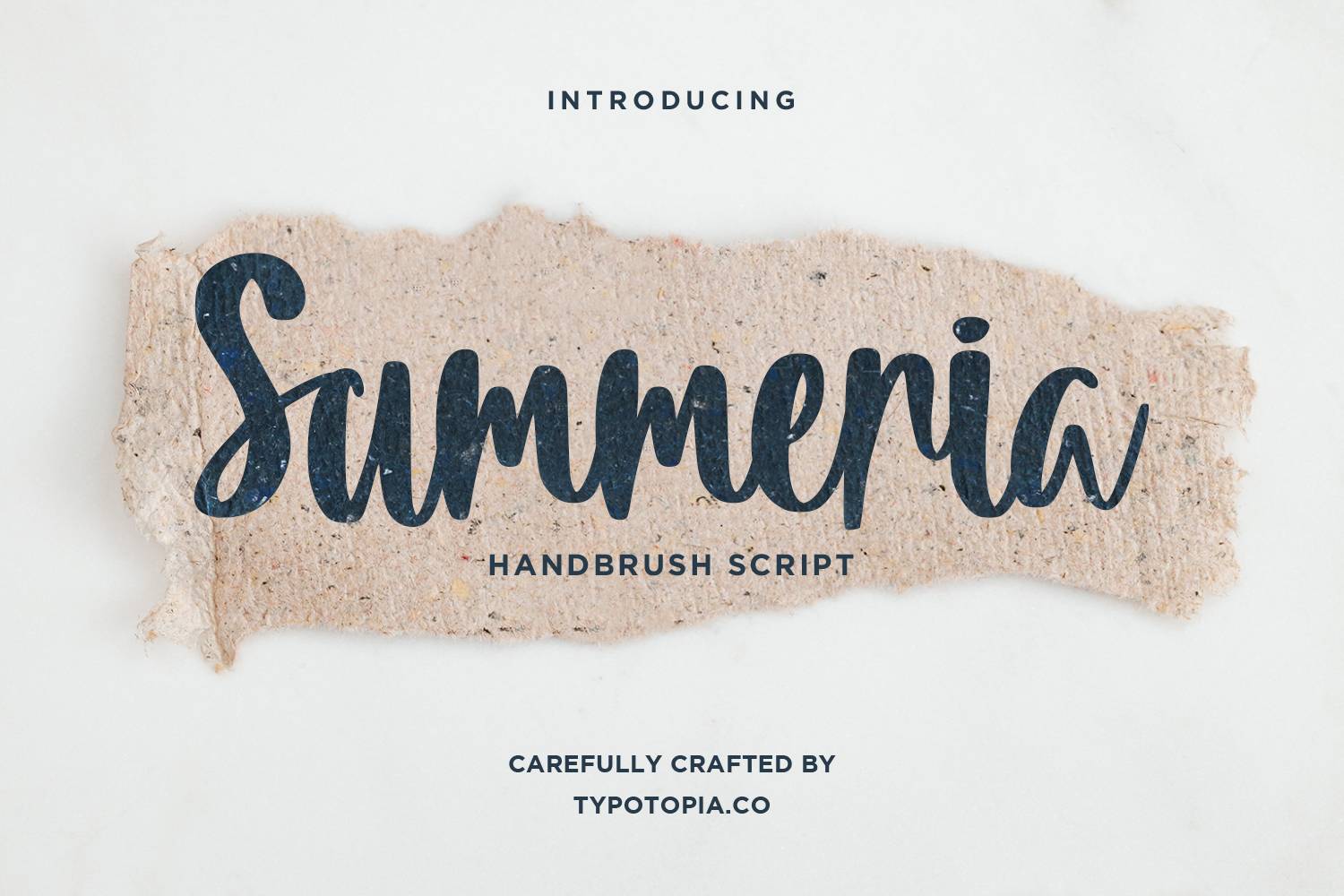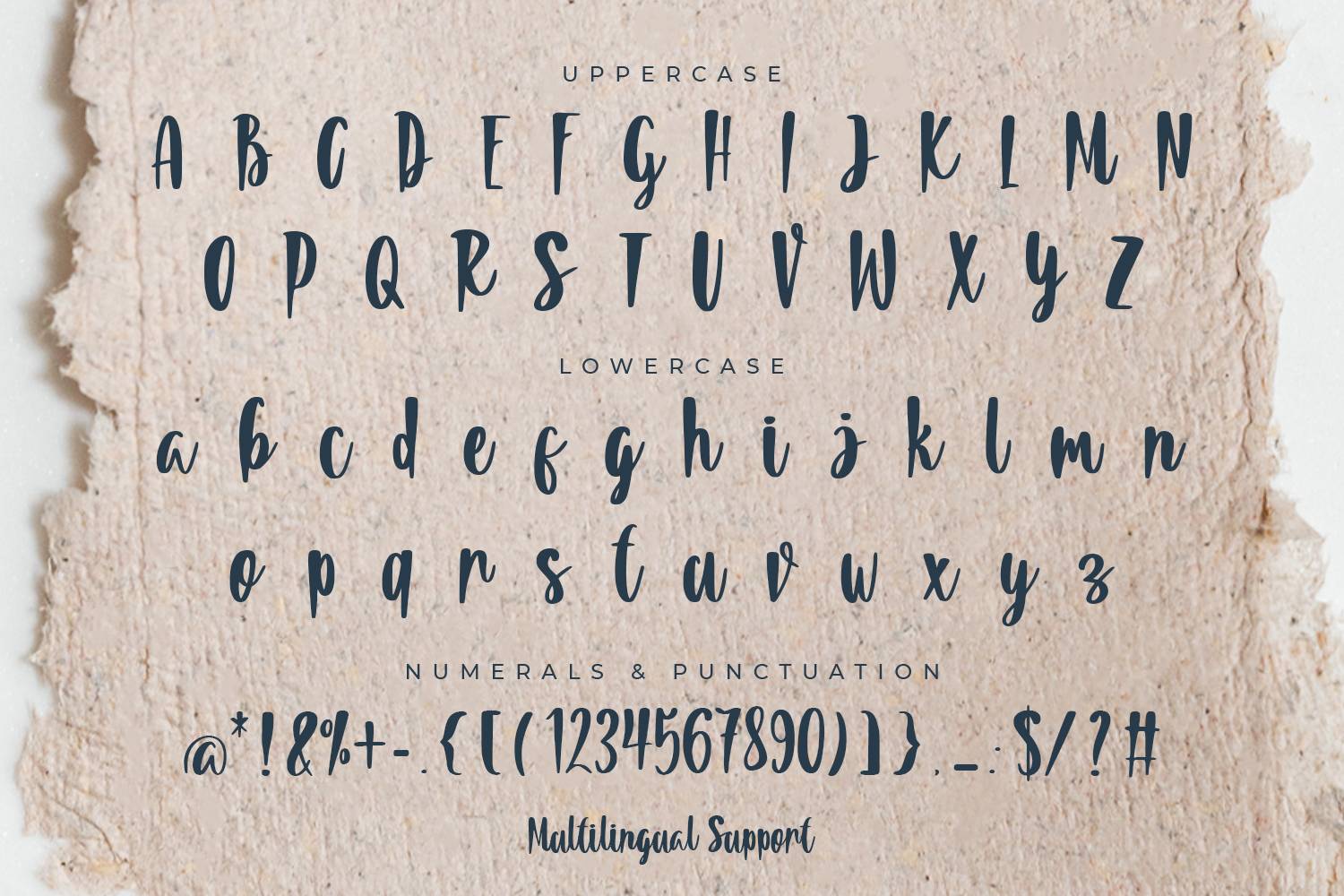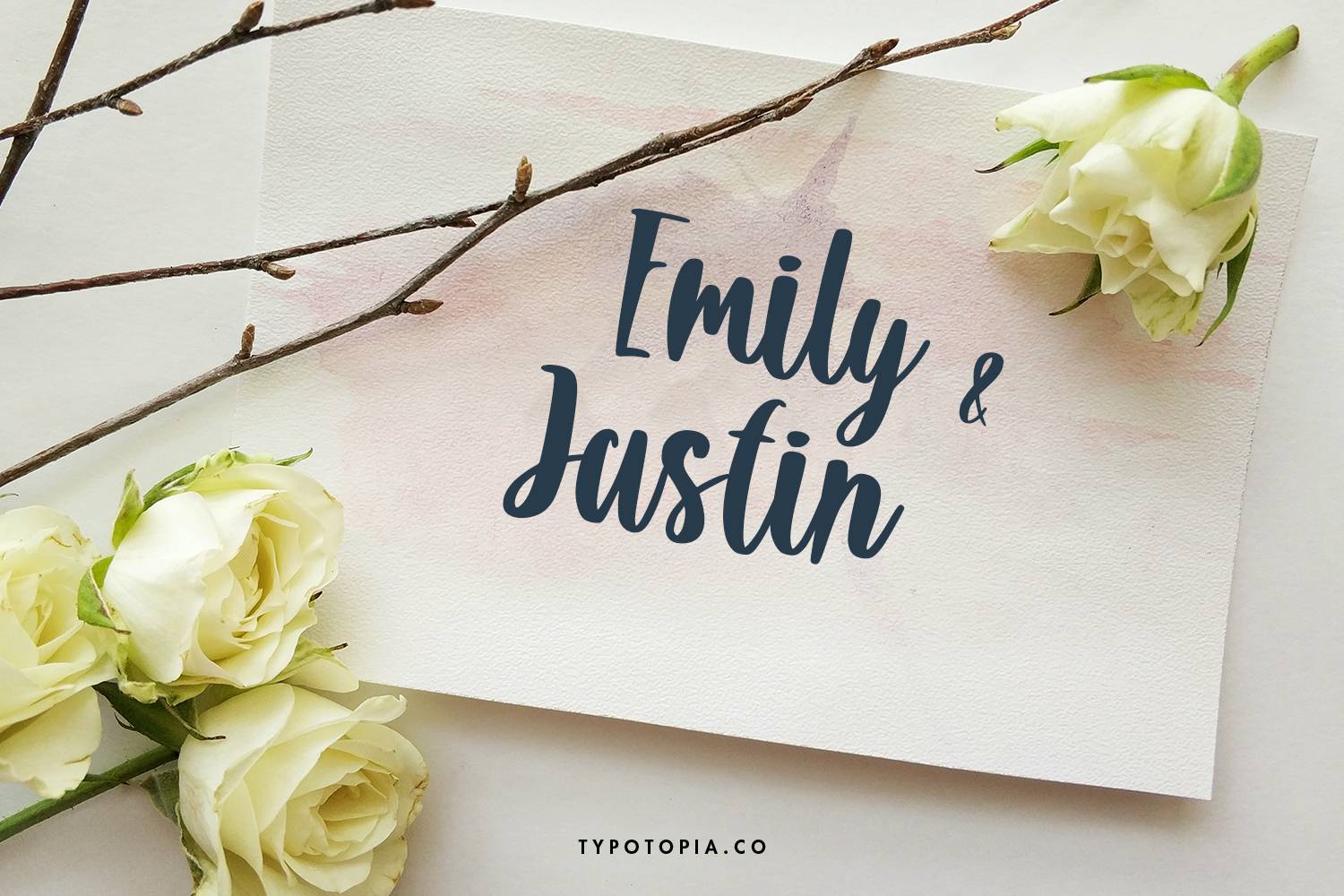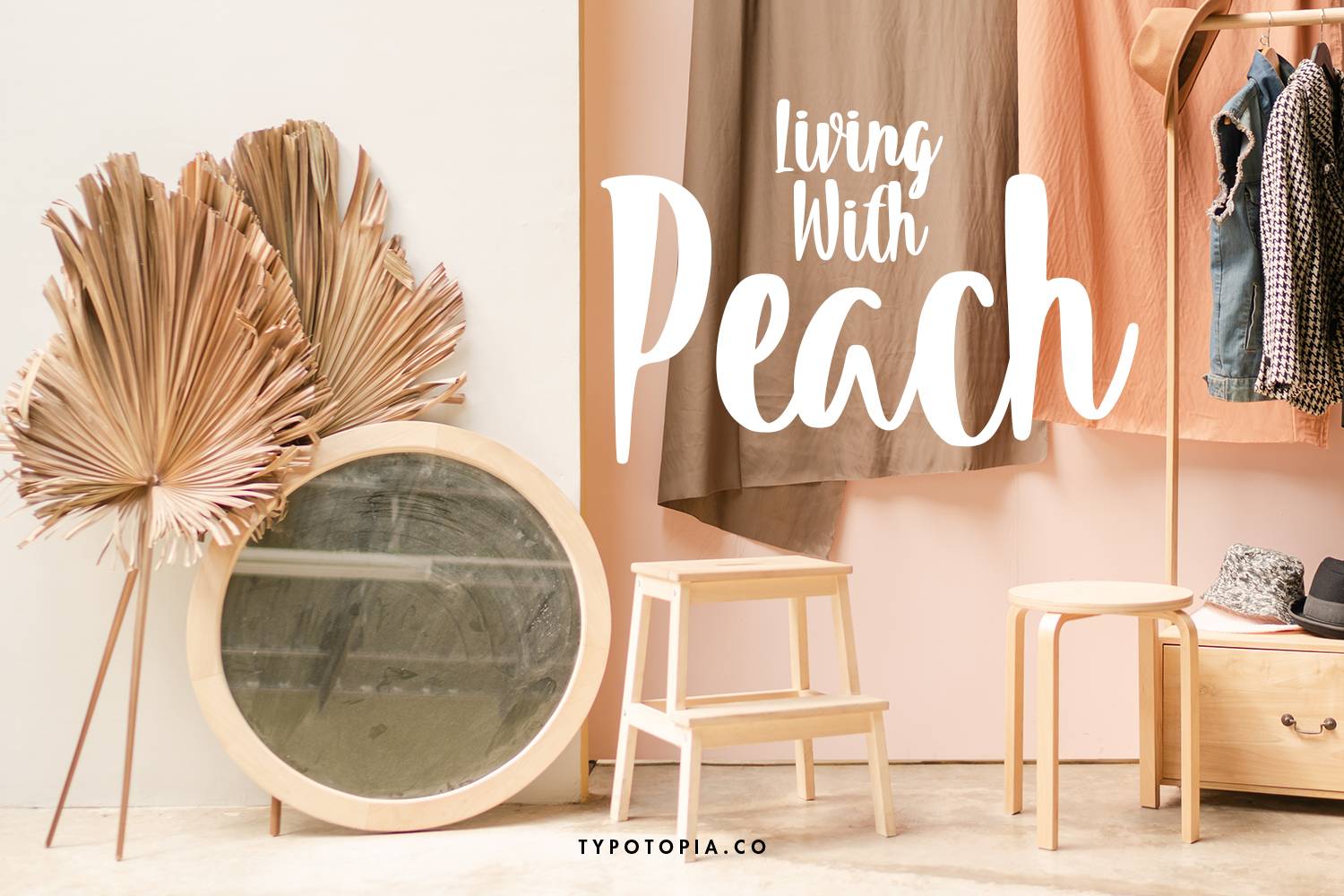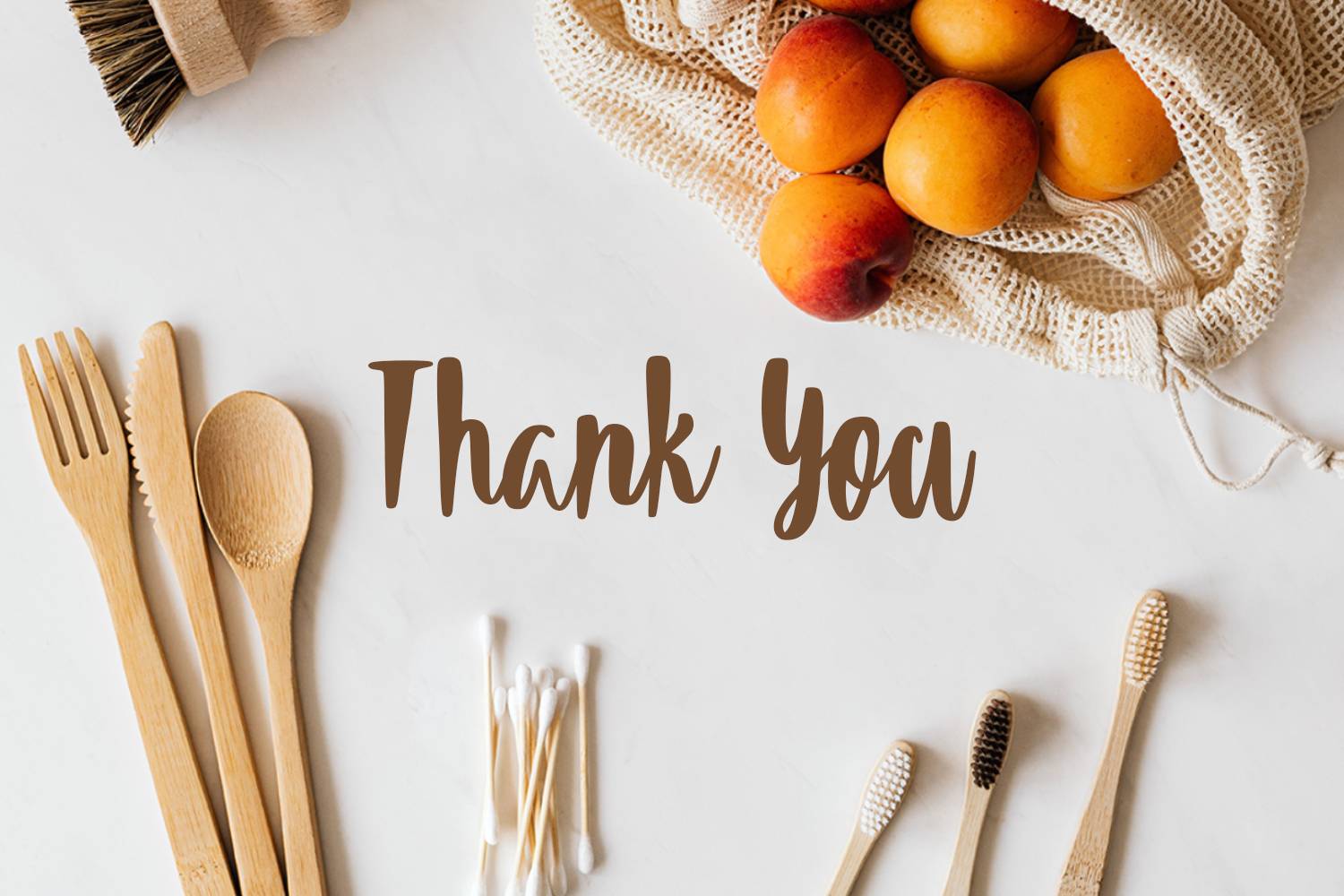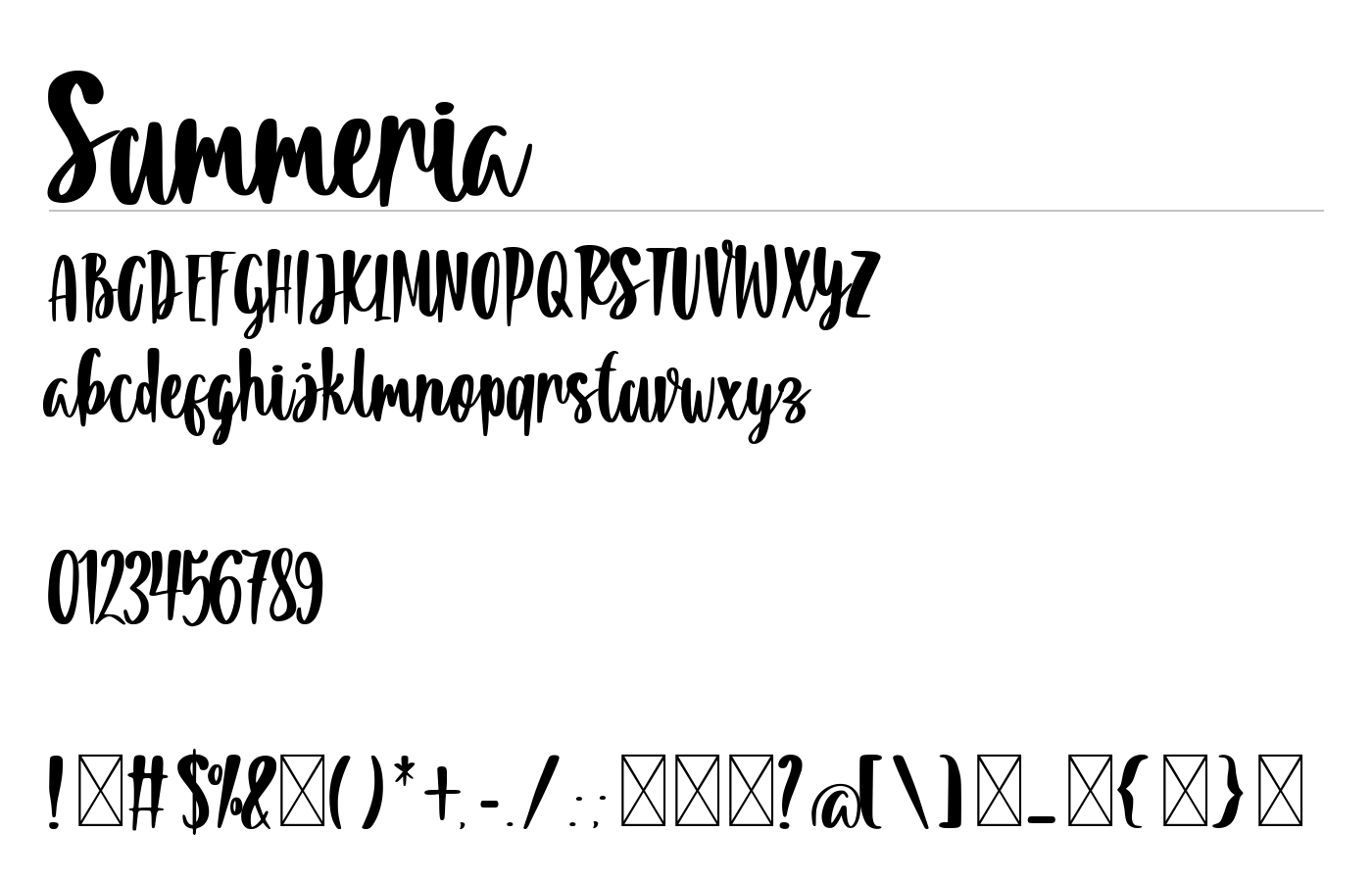
Summeria is a lively and bold script font with a casual, handwritten feel. Its tall, slightly condensed letterforms and smooth, brush-like strokes give it an energetic and friendly personality, perfect for adding a personal touch to branding, invitations, and playful editorial designs. This font works best in headlines or short texts where its charming style can stand out and bring warmth and creativity to the design.
Summeria Font
About Summeria Font
| Font family | Summeria Font |
| Designer | Typotopia |